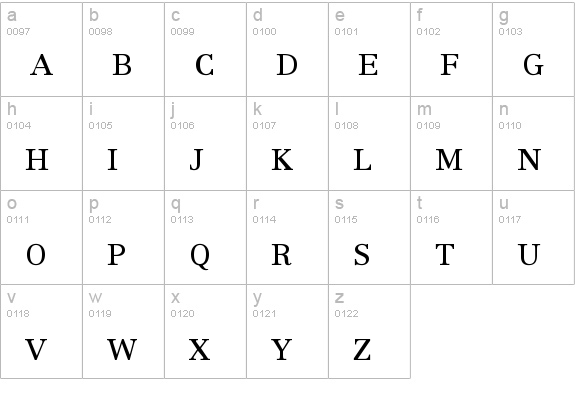
Linotype Centennial 45 Light Small Caps & Oldstyle Figures Font Details
Linotype Centennial 45 Light Small Caps & Oldstyle Figures is a refined, elegant variant in the Linotype typeface family \xE2\x80\x94 well suited to elegant body text, refined sub-headings, and luxury branding.
Linotype Centennial 45 Light Small Caps & Oldstyle Figures is a classic, elegant font that exudes sophistication and timeless beauty. With its delicate small caps and charming oldstyle figures, this typeface is perfect for adding a touch of refinement to any design project. The light weight of the font gives it a delicate and airy feel, making it ideal for use in headings, invitations, and other elegant applications. And the best part? You can download Linotype Centennial 45 Light Small Caps & Oldstyle Figures for free at FontsMarket.com. So go ahead and add this exquisite font to your collection today, and elevate your designs with its grace and charm.